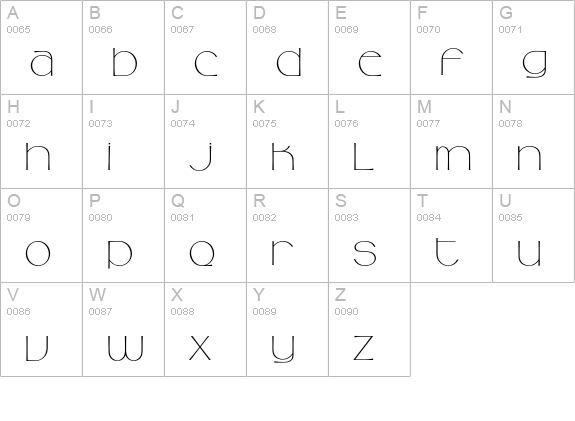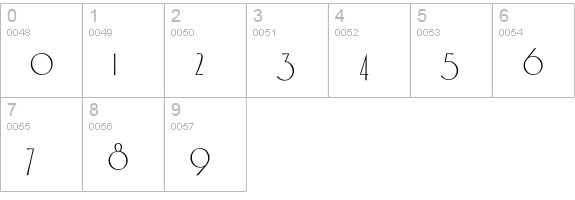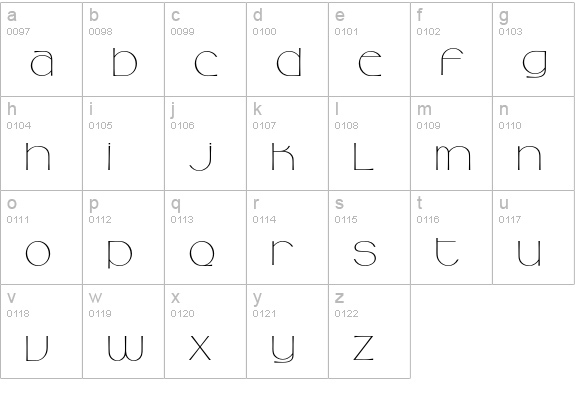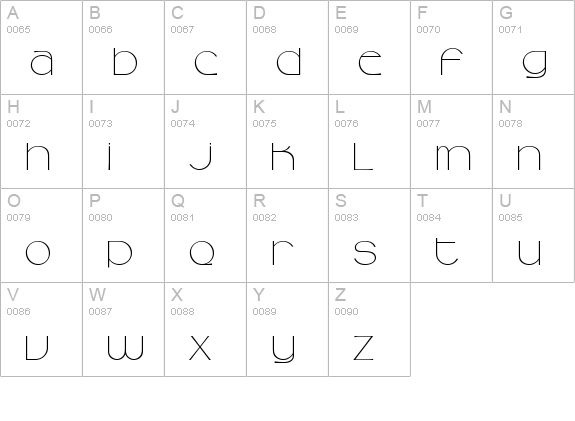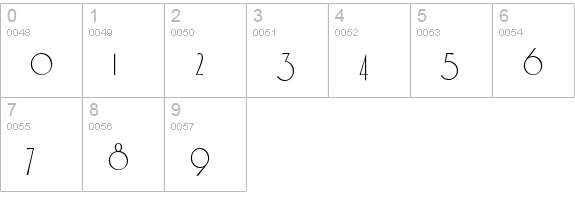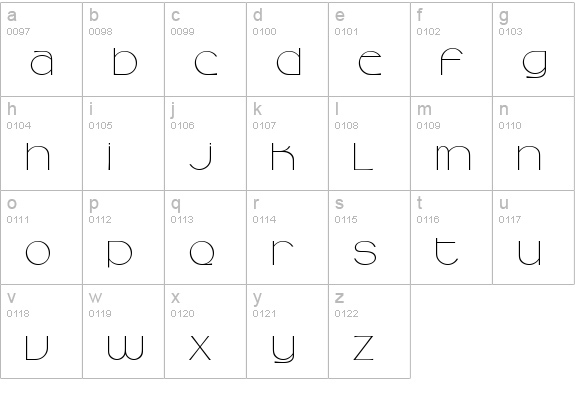
CamelliaEF Font Details
CamelliaEF font is a stunning and elegant typeface that exudes sophistication and charm. Its delicate curves and graceful lines make it perfect for adding a touch of class to any design project. Whether you're creating invitations, branding materials, or social media graphics, CamelliaEF font will elevate your work to the next level. The best part? This exquisite font is completely free to download at FontsMarket.com. With just a few clicks, you can access this beautiful typeface and enhance your creative projects without any cost. Don't miss out on the opportunity to elevate your designs with the timeless beauty of CamelliaEF font - download it today and let your creativity shine!